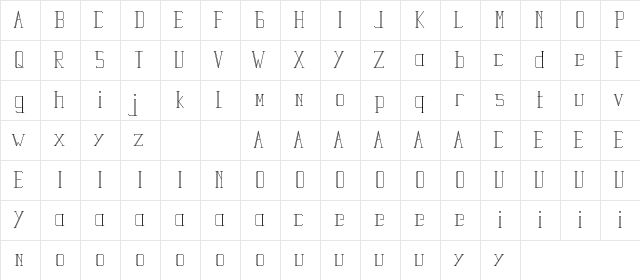
Velasquis TamyraDemo Regular
| Foundry | Edric Studio |
| Designer | Ega & Suci Anita |
Design Context for Velasquis TamyraDemo Typeface
Velasquis TamyraDemo takes a measured approach to typography — its balanced proportions and neutral character make it a reliable workhorse for both digital and print work.